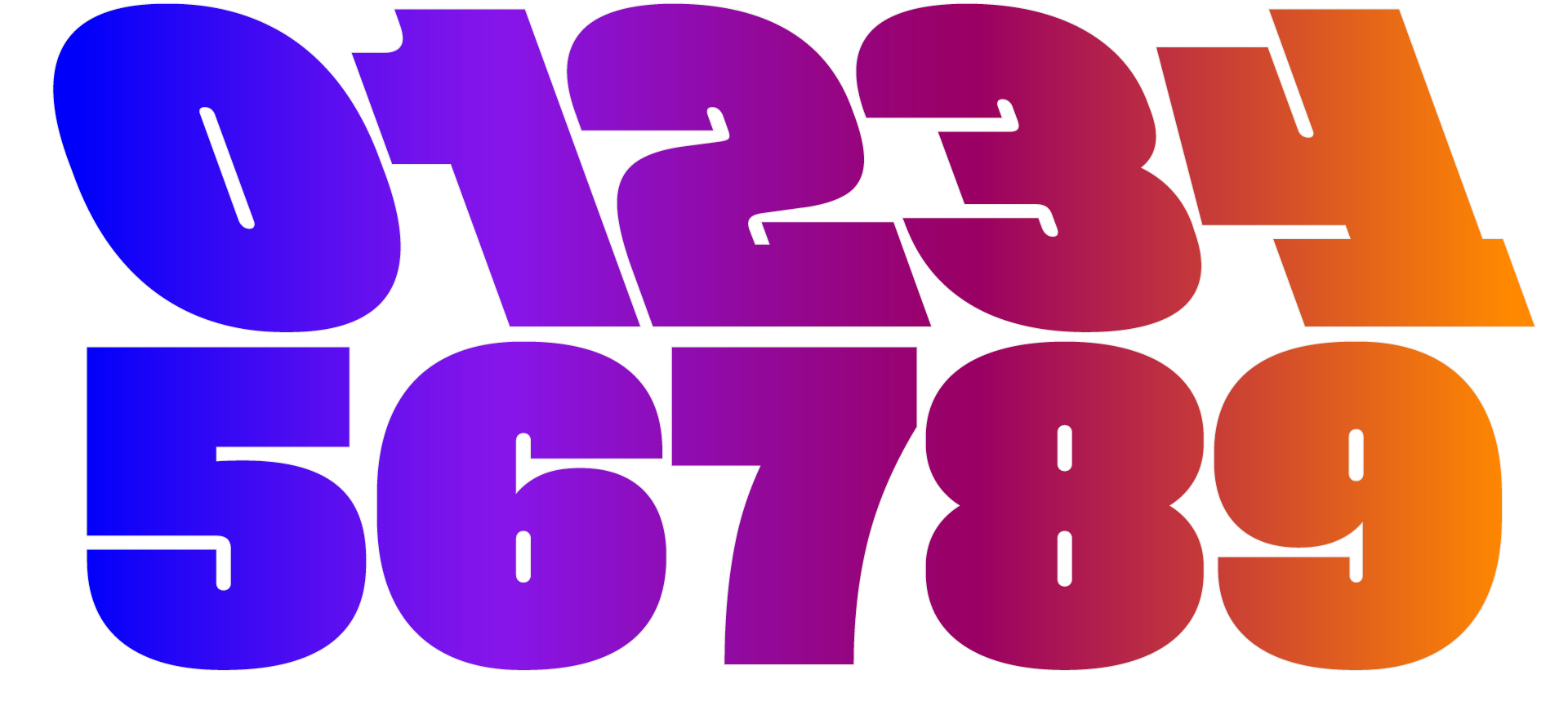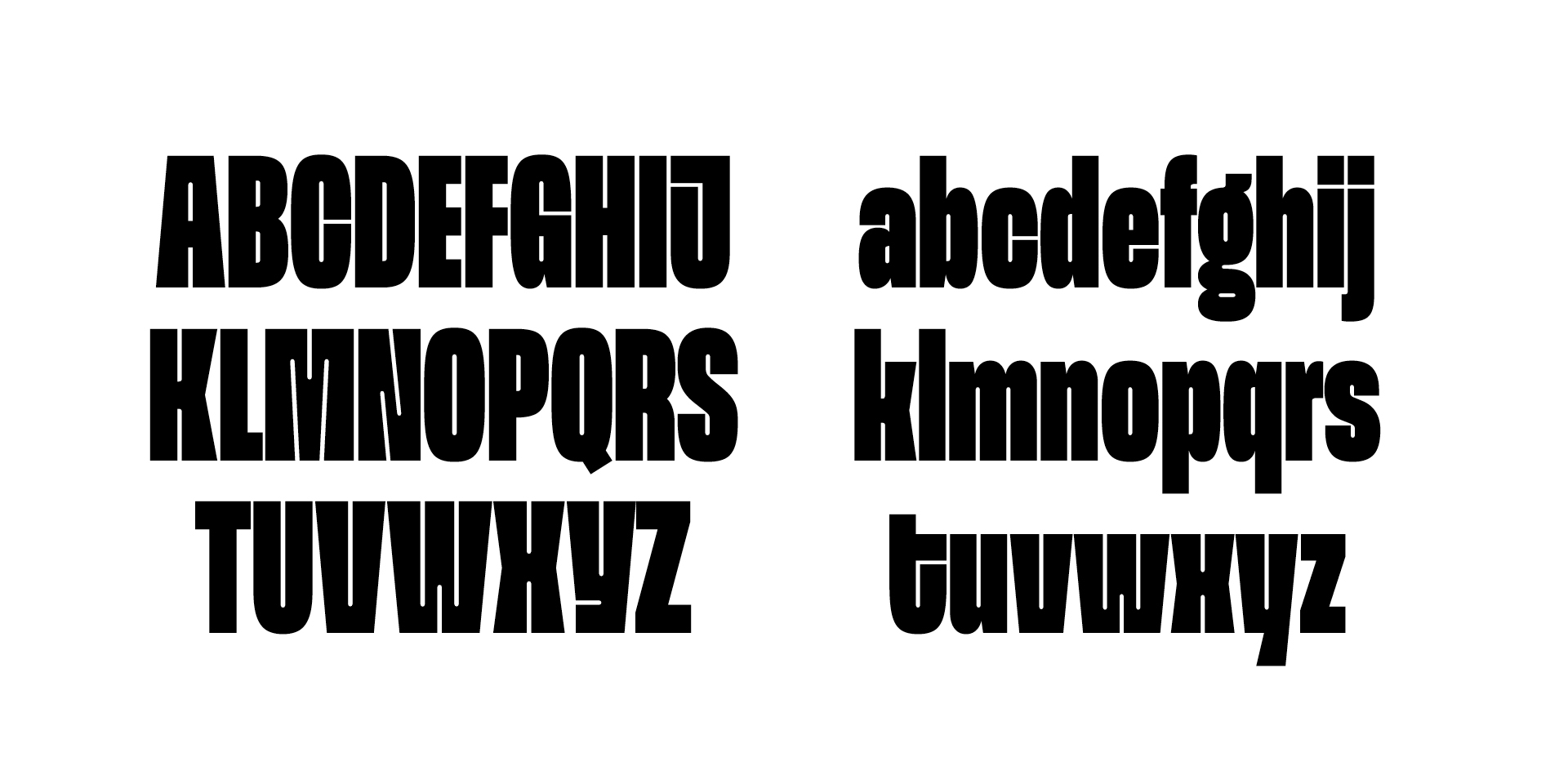
Krista Likar and Alja Herlah began designing Spektra during the pandemic when they ended up in different regions of Slovenia and noticed how differently people speak and write within one same country. However different we might be, says Krista, we should start understanding each other, and Spektra is a typeface to remind us of it. Spektra takes into account all oddities and particular features of the scripts it supports, which is why it is so often chosen for social projects.
Spektra turned out to be the most popular Type Salon typeface, and, after numerous requests from graphic designers, in 2022 Krista and Alja introduced four more weight options to the collection: Light, Bold, Black, Heavy (equipped with an italic and a backslant style each). Plus, the variable Spektra got a new axis.
Krista and Alja treated working on new styles as a challenge and an opportunity to find out how many weight options such a typeface can actually have. As it turned out, the number